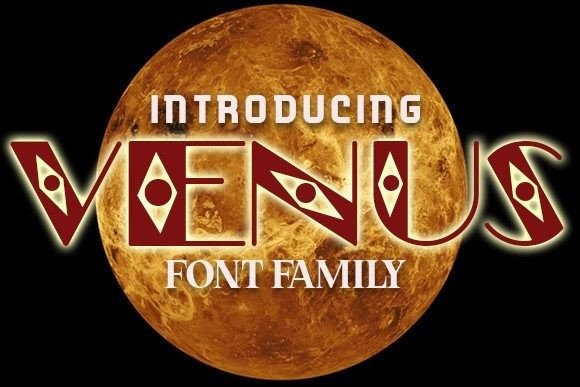
**Unleash the Charm of Venus, the Font That Captures Nostalgia and Elegance**
Step into the realm of timeless beauty with Venus, the captivating display font that transports you to an era of retro allure. With its enchanting and whimsical character, Venus is the perfect companion for your creative endeavors, ready to infuse your projects with a touch of yesteryear.
Imagine your golf flyer, adorned with the exquisite curves and flowing lines of Venus. Its playful spirit will draw eyes to your message, inviting readers to embark on an unforgettable journey into the world of vintage charm.
Venus is not just a font; it's a testament to the enduring power of nostalgia. Each letterform dances across the page with a grace that evokes memories of bygone times, adding a touch of sentimentality to your designs. Its versatility extends beyond the world of flyers, making it the ideal choice for posters, blogs, and any creation that demands a sprinkle of retro magic.
Whether you're looking to evoke a sense of longing or simply add a dash of whimsy, Venus has the power to transform your projects into enchanting works of art. Its unique character will captivate audiences, leaving a lasting impression that echoes the timeless appeal of the past.